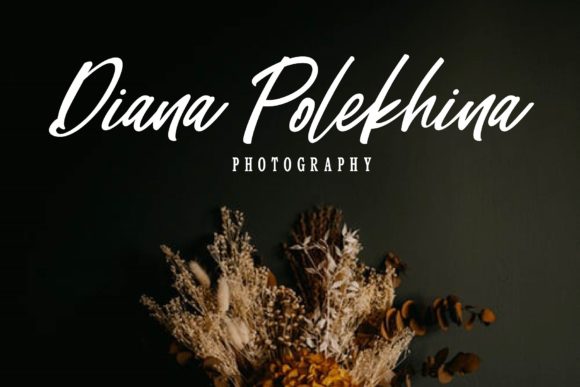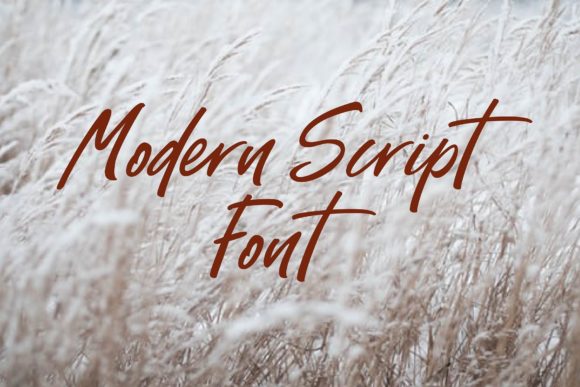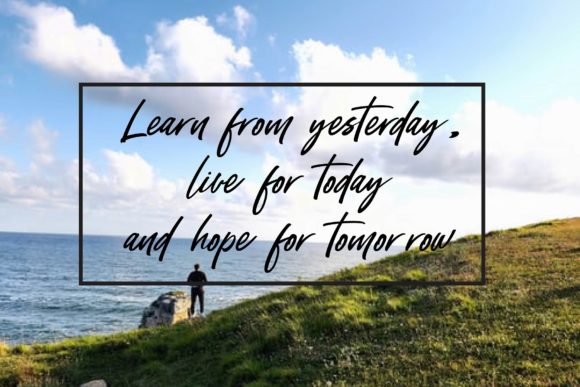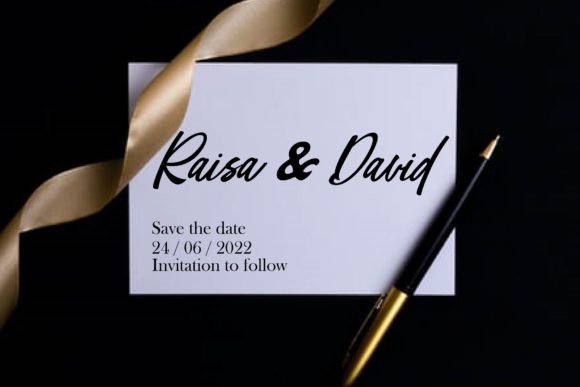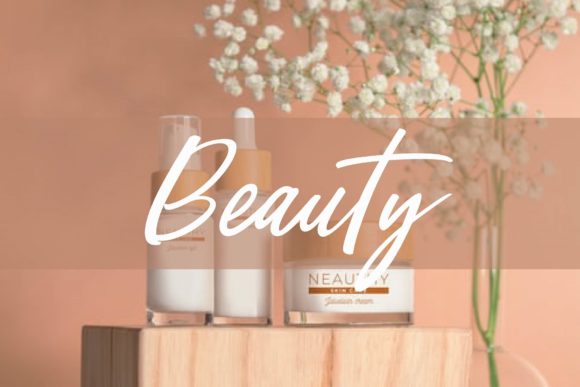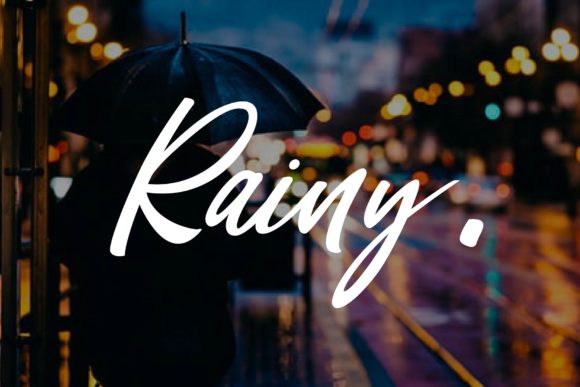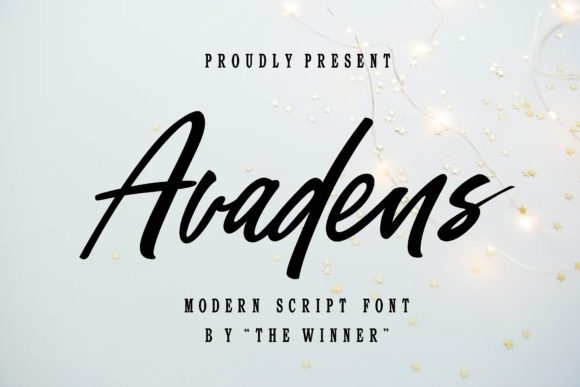
The Elegant Avadens Font: A Designer’s New Best Friend
Have you ever been in the middle of a design project, and suddenly, you’re stuck on finding the perfect font? I certainly have! It was a typical Wednesday evening when I received a client’s request for a elegant, yet modern script font for their luxury brand’s logo. After scouring through my font library, I stumbled upon Avadens – a beautiful script font that instantly caught my attention.
First Impressions: A Love Affair with Avadens
Avadens is described as an elegant script font with a contemporary atmosphere and impeccable form, inspired by timeless classic calligraphy. And trust me, it delivers! The first thing I loved about Avadens was its balanced and varied strokes – not too thin, not too thick. It’s perfect for adding a touch of sophistication to your designs.
What I Love About Avadens ✨
- ✅ Elegant and modern script style
- ✅ Well-balanced and varied strokes
- ✅ Perfect for luxury brands, weddings, and high-end designs
- ✅ Easy to read and understand
- ⚠️ Limited use for body text due to its script nature
- ⚠️ May require adjustments for certain design applications
The Story Behind Avadens
Avadens was designed with the intention of creating a timeless, elegant script font that captures the essence of classic calligraphy. The designer aimed to create a font that’s not too ornate, yet still sophisticated and luxurious. And I must say, they’ve succeeded!
| Author | The1stWinner |
| What is Avadens best used for? | Avadens is perfect for luxury brands, weddings, high-end designs, and any project requiring an elegant script font. |
| Can I use Avadens for body text? | While Avadens is easy to read, it’s primarily designed for headings and titles. For body text, consider a more traditional font. |
| Is Avadens suitable for digital designs? | Yes! Avadens works well for both print and digital designs, including logos, branding, and social media graphics. |